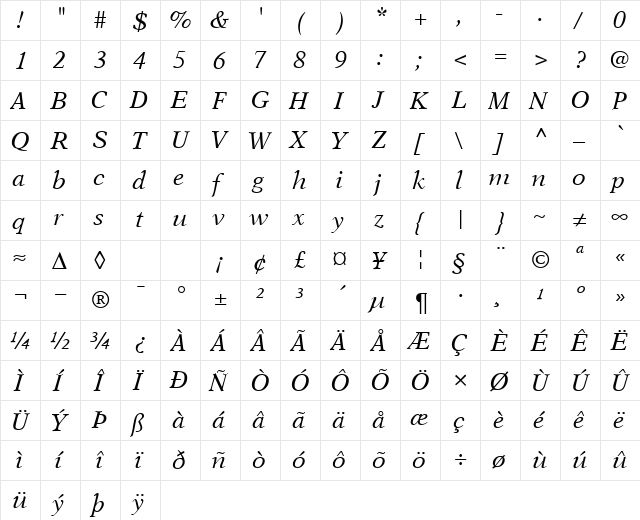
AsterNova RegularItalic
Design Context for AsterNova Typeface
AsterNova is a composed and adaptable typeface that performs quietly and consistently across a wide range of design contexts. The slanted form adds forward momentum and visual energy.
Pro Tip: Use AsterNova for emphasis, pull quotes, and subheadings where its slanted energy can add rhythm to the layout.